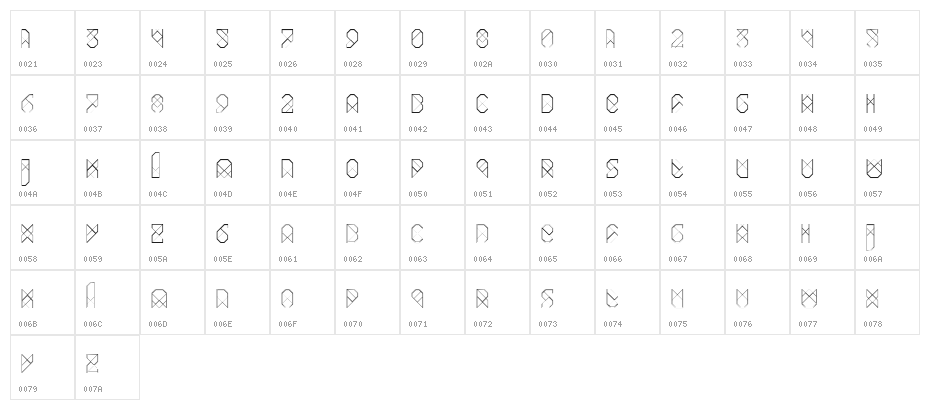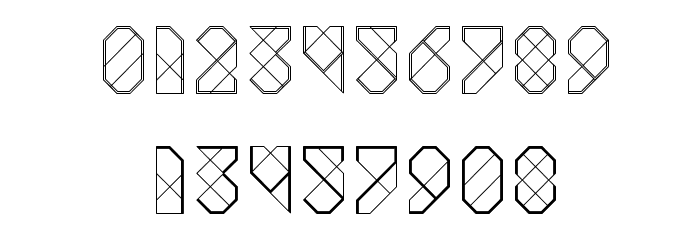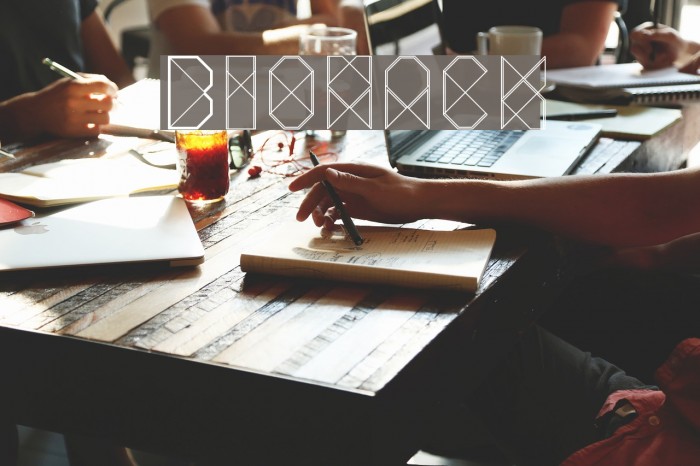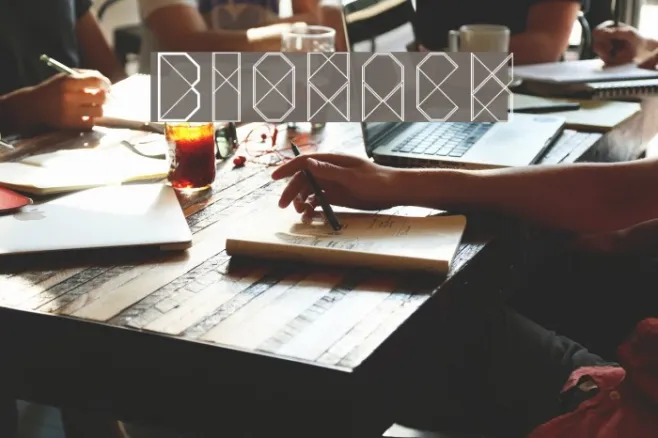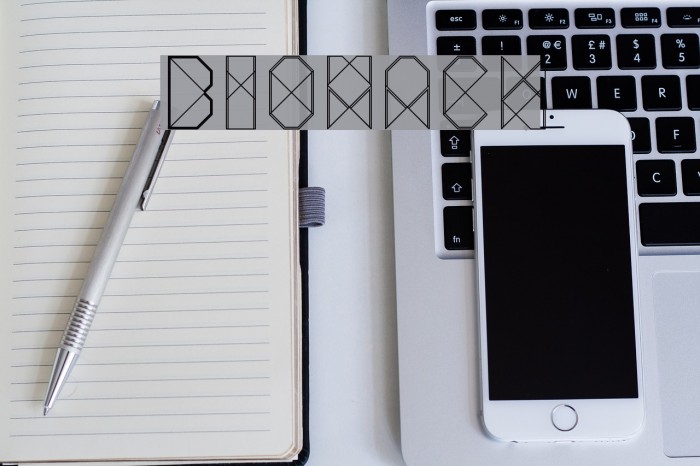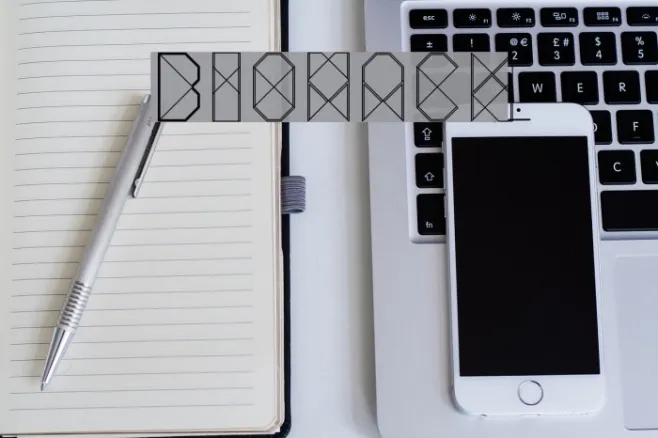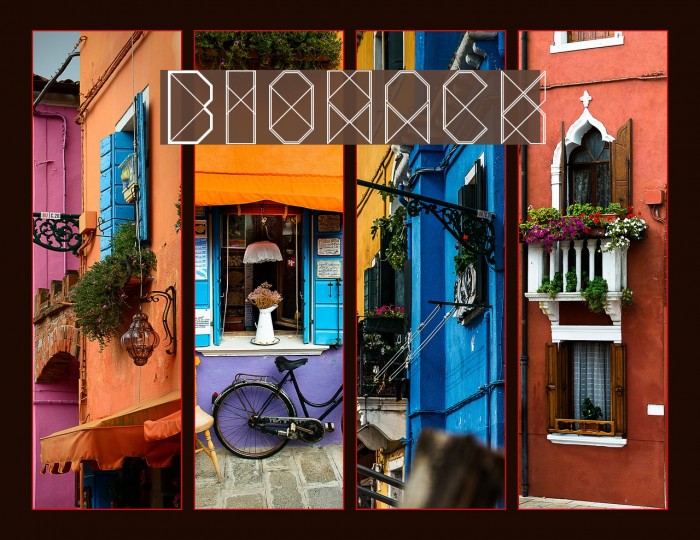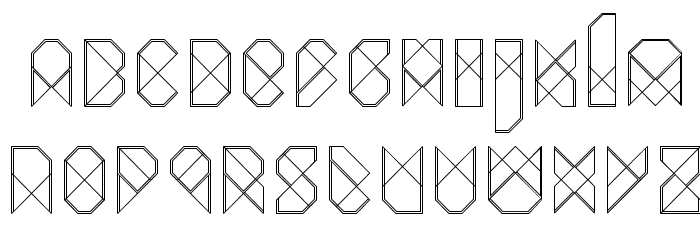
Biohack Font
Biohack Description
This font features a geometric and futuristic design, characterized by its angular and intersecting lines that create a complex, lattice-like appearance. Each character is constructed with a series of overlapping shapes, giving it a unique, almost architectural feel. The font is highly decorative, with a strong emphasis on symmetry and precision. Its intricate design makes it stand out, offering a modern and innovative look that is both eye-catching and sophisticated. The characters are uniform in width, contributing to a balanced and cohesive visual flow.
Ruud van den Elzen